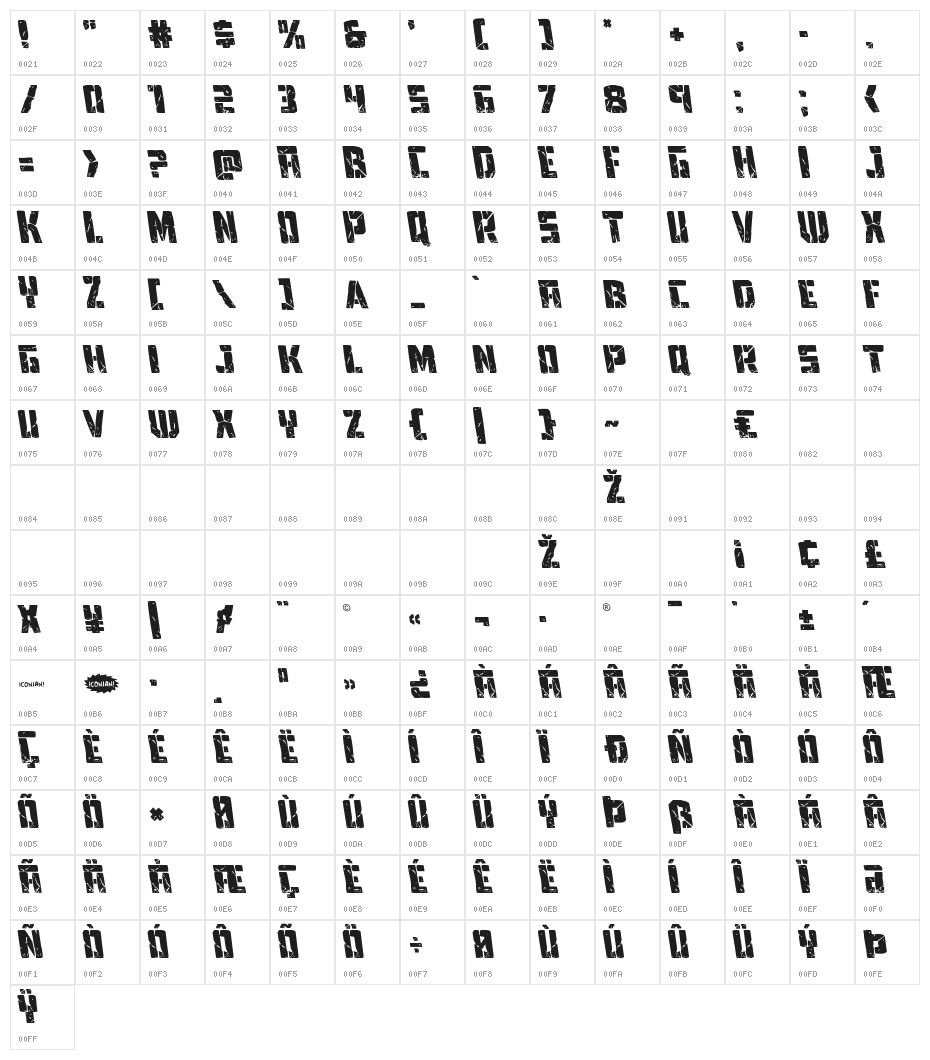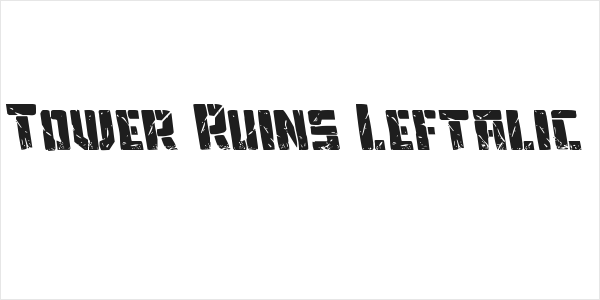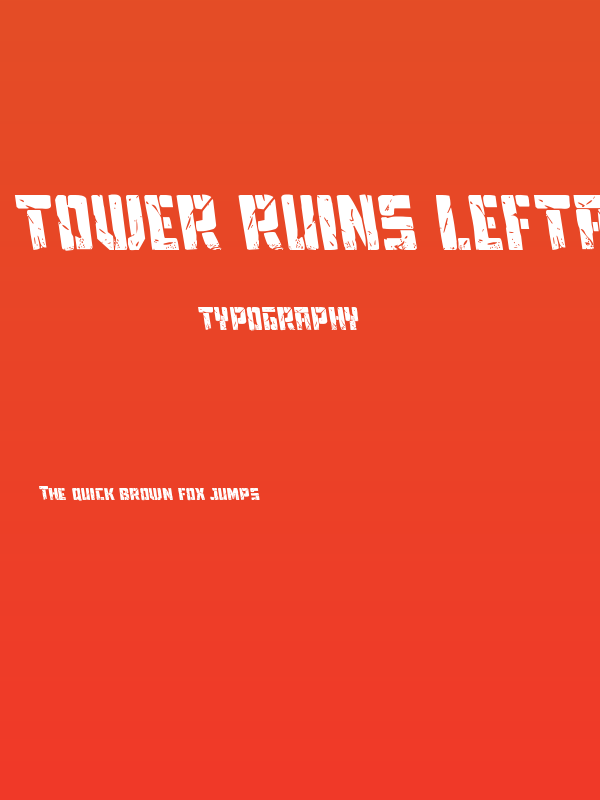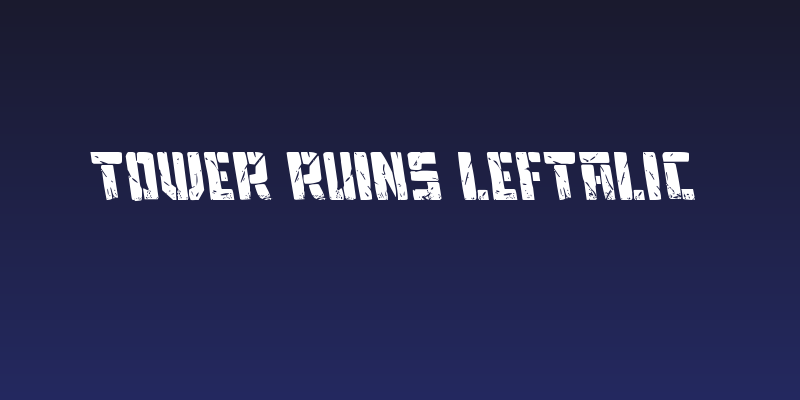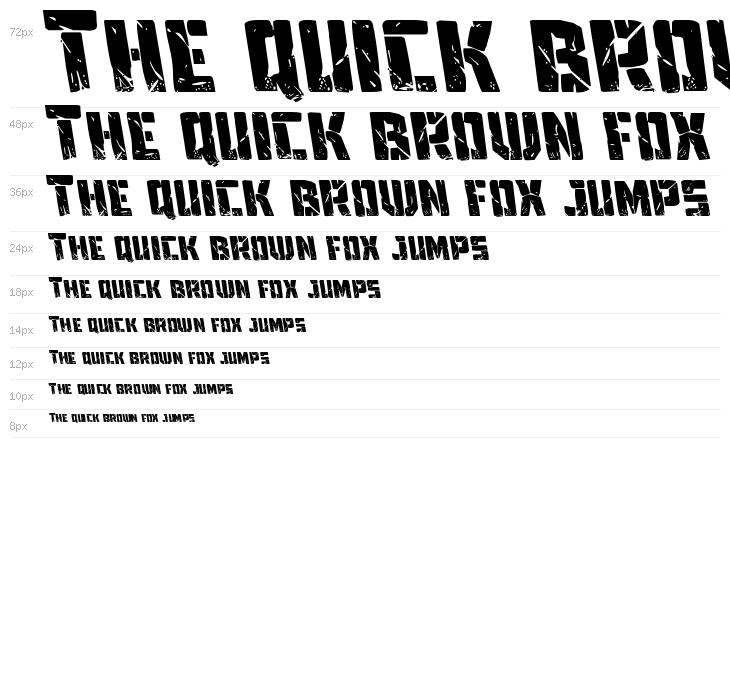
Tower Ruins Leftalic Font
Tower Ruins Leftalic Description
This font features a rugged, distressed style with a bold and impactful appearance. The characters are heavily textured, giving the impression of erosion or decay, which adds a unique, gritty aesthetic. The uppercase and lowercase letters maintain a consistent design, with each character appearing as if it has been chipped away or weathered over time. This effect is applied uniformly across all characters, including numbers and special symbols, creating a cohesive look. The font's boldness and distinct texture make it stand out, ideal for projects that require a strong visual impact.
| Proposed Projects | Ideal for posters, album covers, video game graphics, or any project needing a gritty, impactful look. |